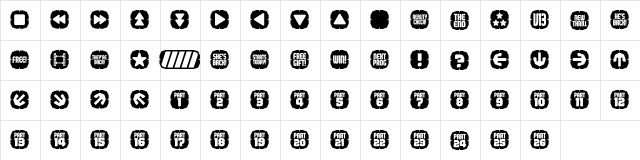
Judgement Icons Font Preview
Judgement Icons
Judgement Icons Font Details
Design Context for Judgement Typeface
Judgement is a composed and adaptable typeface that performs quietly and consistently across a wide range of design contexts.